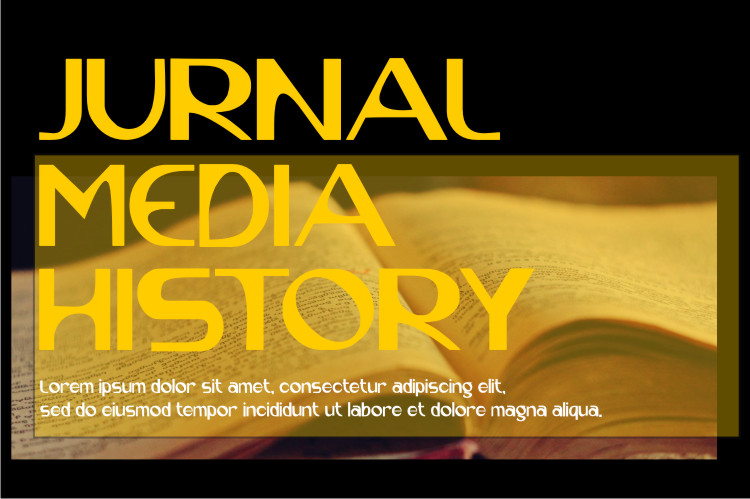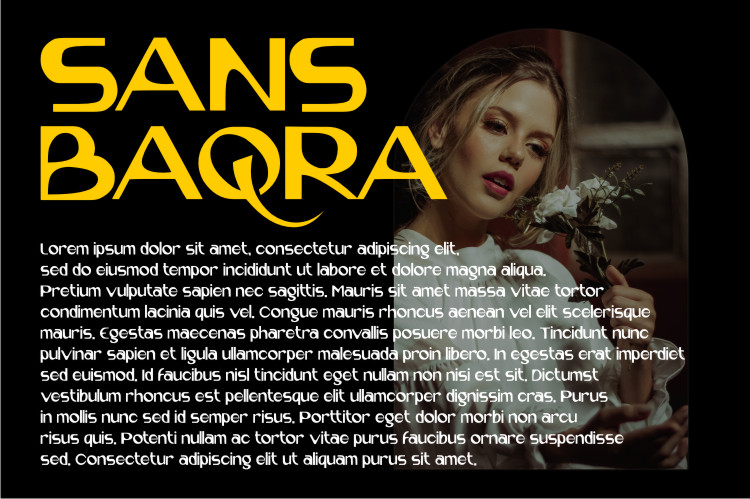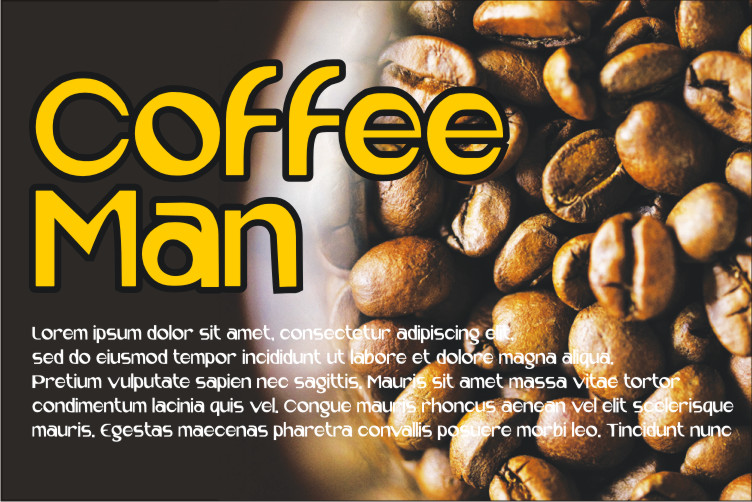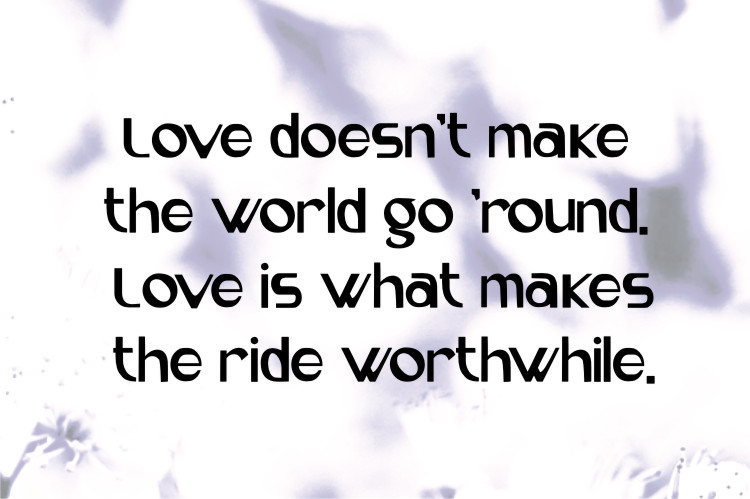
Denolax Display Font
This is a cool, elegant and distinct display font. This font is suitable for designs such as t-shirts, sportswear, logos, advertisements, clothing, and more.